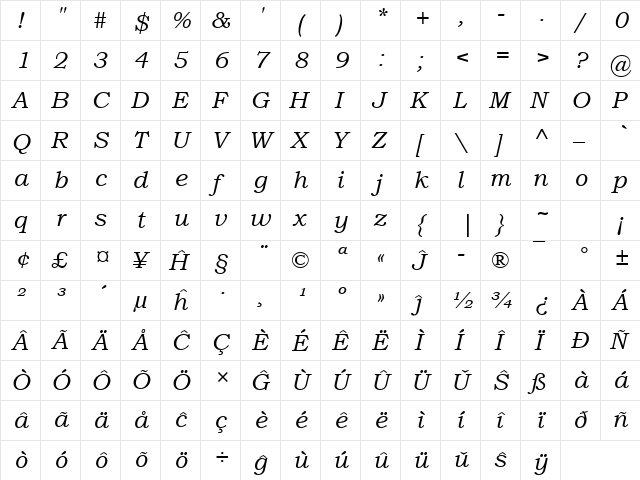
Bookman Old Style Eo Italic
Design Context for Bookman Old Style Eo Typeface
Bookman Old Style Eo takes a measured approach to typography — its balanced proportions and neutral character make it a reliable workhorse for both digital and print work. The slanted form adds forward momentum and visual energy.
Pro Tip: Try Bookman Old Style Eo for annotation and caption copy alongside an upright companion — the contrast in angle creates a dynamic but ordered typographic system.